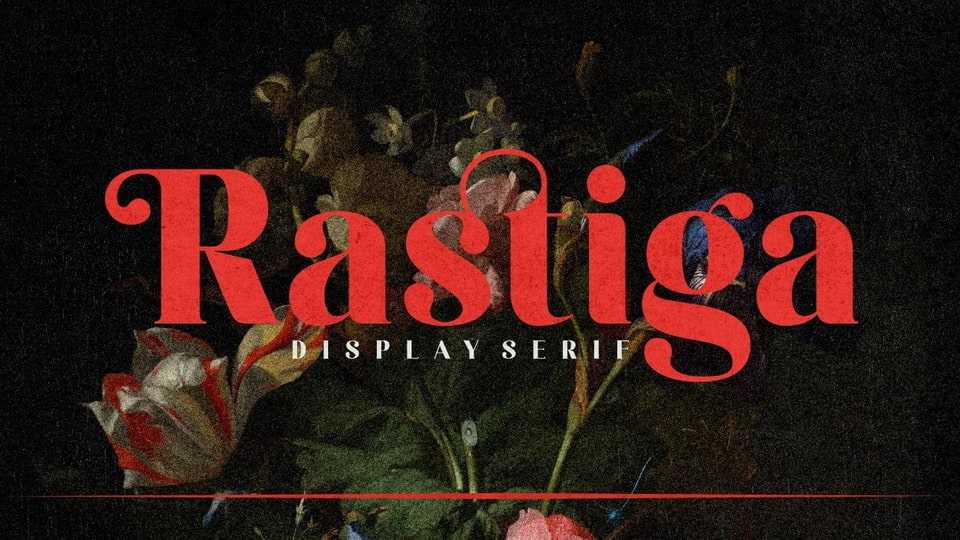
Download Rastiga font, a display serif typeface that looks bold and elegant with a retro touch. With clear letter shapes that are easy to read with simple curves at the ends of the letters.